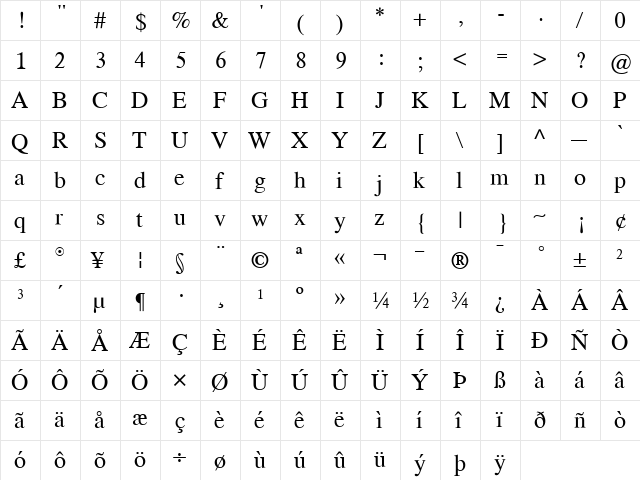
Kliment Std Regular Font Preview
Kliment Std Regular
Kliment Std Regular Font Details
| Foundry | Sebastian Kempgen |
| Designer | Sebastian Kempgen |
Design Context for Kliment Std Typeface
Kliment Std is a composed and adaptable typeface that performs quietly and consistently across a wide range of design contexts.